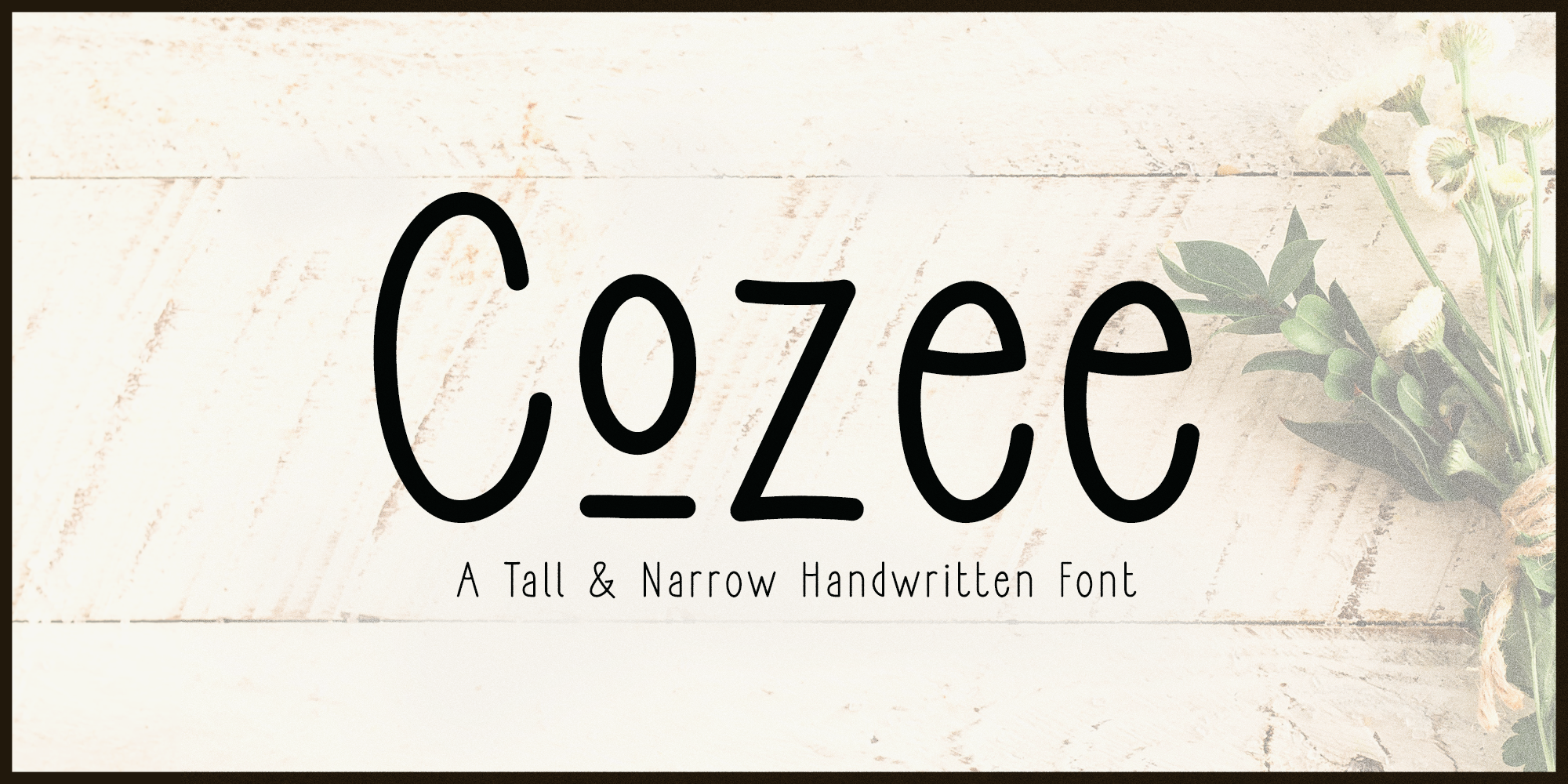
Cozee Font is perfect for comfortable design projects including cozy cafes, home decor brands, hygge lifestyle magazines, comfort food restaurants, warm hospitality venues, snugly bed and breakfast inns, cozy reading nooks, and heartwarming family campaigns. This inviting typeface excels in fireside lounges, comfort clothing brands, warm bakeries, homestyle eateries, and projects that celebrate comfort, warmth, and the joy of cozy living experiences.
What makes Cozee Font exciting is its comforting homestyle character that perfectly captures the essence of warmth and intimate comfort. The font features soft letterforms with gentle curves that reflect the soothing embrace and welcoming atmosphere of cozy spaces. Its warm design elements embody the spirit of domestic comfort and heartfelt hospitality, making it perfect for projects that need to convey coziness, warmth, and connection to homestyle traditions. The carefully crafted comfort-inspired proportions create an atmosphere of snuggled contentment and heartwarming familiarity.
Cozee Font comes in multiple family variations including snugly, warm, homestyle, and comfort styles. Each weight maintains the distinctive cozy character while offering different levels of comfort intensity and warm presence. The font family includes comfort alternates, cozy ligatures, and heartwarming variations that provide designers with comprehensive options for creating truly inviting and authentically comfortable typographic compositions that celebrate cozy living.
Whether you're designing comfort branding, creating cozy marketing materials, or developing heartwarming promotional graphics, Cozee Font Free Download provides the perfect typographic foundation for projects that celebrate comfort excellence and cozy lifestyle. This delightful typeface transforms ordinary text into compelling expressions of warmth and homestyle comfort. Download this heartwarming font today and snuggle your design projects with the cozy charm and comfortable elegance that captures the essential spirit of hygge living and heartfelt hospitality.